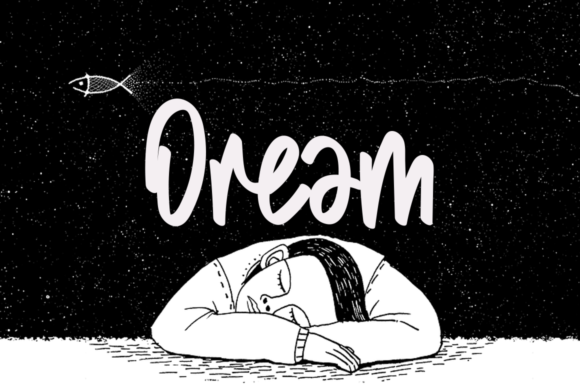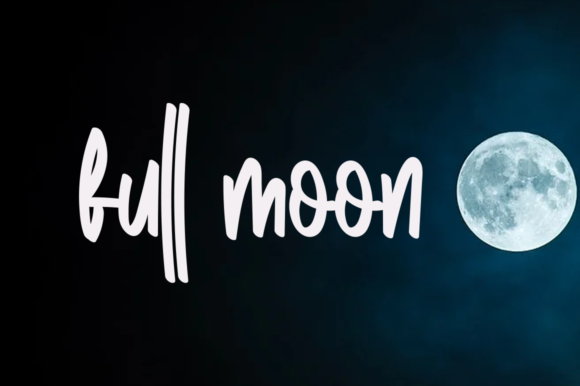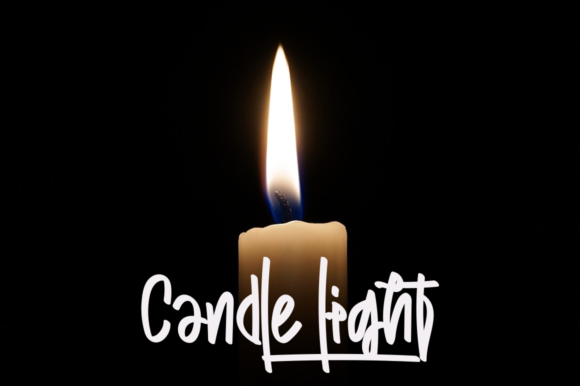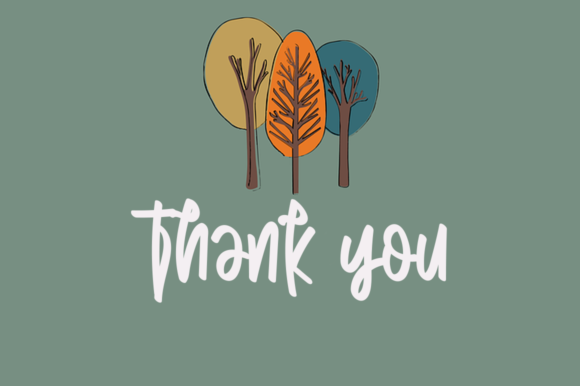
About Believe Font
Believe is a delightful handwritten font that adds a touch of charm and whimsy to your designs. With its well-rounded characters and friendly vibe, this typeface brings a sense of warmth and positivity to any project.
The charming nature of Believe makes it a perfect choice for a variety of creations. Whether you’re working on invitations, greeting cards, posters, social media graphics, or any other design, this font will instantly make your creations stand out.
The well-rounded characters of Believe give it a playful and approachable feel. The smooth curves and balanced letterforms create a harmonious flow, making the text visually appealing and easy to read. This makes Believe suitable for a wide range of applications, from branding and marketing materials to personal projects.
The friendly vibe of Believe adds a sense of warmth and positivity to your designs. It evokes a feeling of joy and whimsy, making it especially suitable for projects that aim to uplift and inspire. Whether you’re designing for children, events, or any other lighthearted theme, Believe will bring a smile to your audience’s face.
Believe is versatile in its usage, allowing you to experiment with different layouts, sizes, and color combinations. Its handwritten style lends itself well to both casual and more refined designs, giving you the flexibility to adapt it to your specific project requirements.
With Believe, you can create captivating headlines, engaging body text, or eye-catching call-to-action elements. Its charm and friendly vibe will draw attention and add personality to your designs.
In conclusion, Believe is a charming handwritten font that brings a sense of warmth and positivity to your designs. Its well-rounded characters and friendly vibe make it an excellent choice for a wide range of projects. Embrace the whimsy and let Believe elevate your creations, making them truly out of this world!